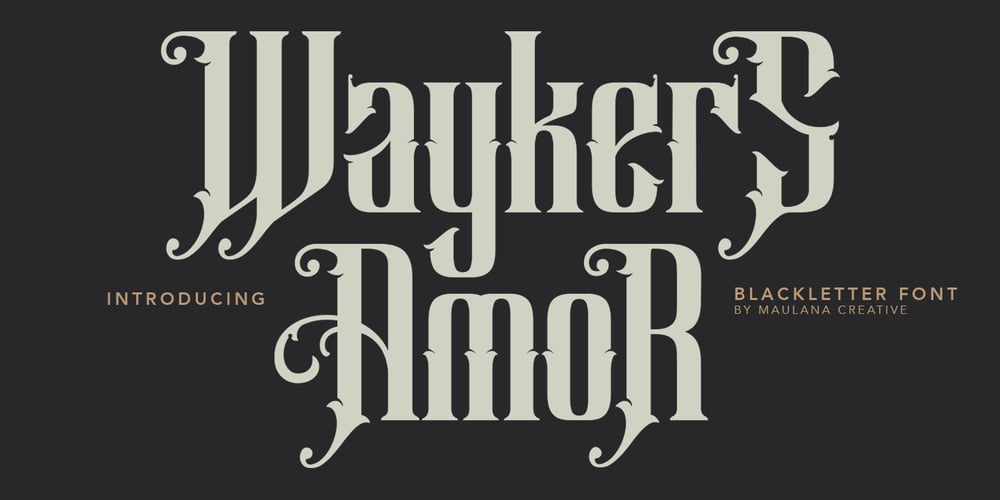
Waykers Amor
Waykers Amor font
Waykers Amor Font Family was designed by Gilang Maulana and published by Maulana Creative. Waykers Amor contains 1 styles and family package options. Introducing Waykers Amor Blackletter Font is a handmade Modern Victorian handlettering, which is combining modern and classic typography with some awesome alternates. Yes we back to early 1800s, bring classic touch on this decade.Thanks for use this font.MaulanaCreative.